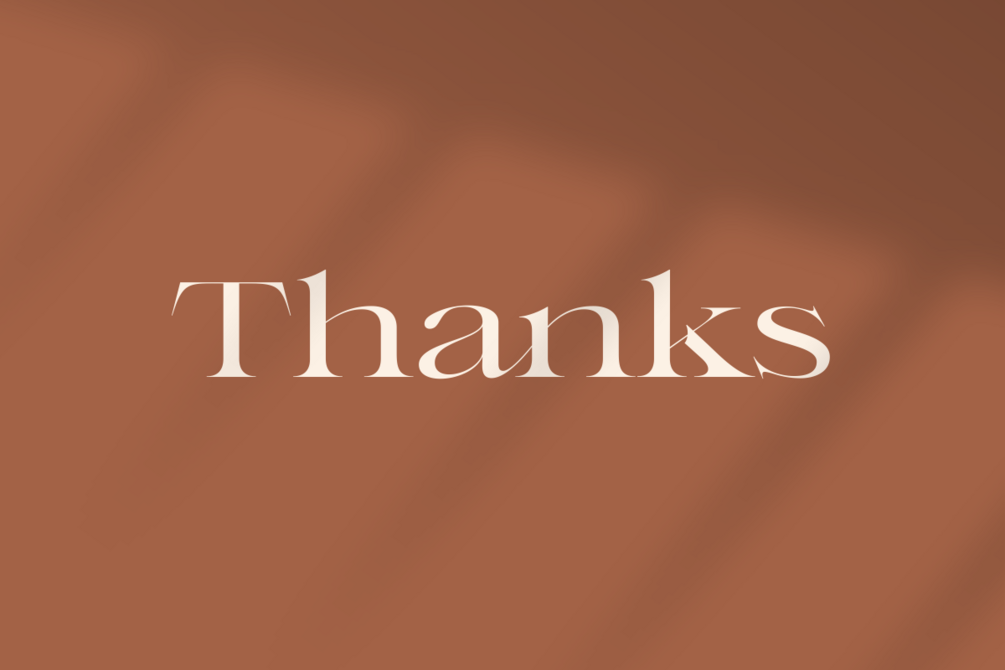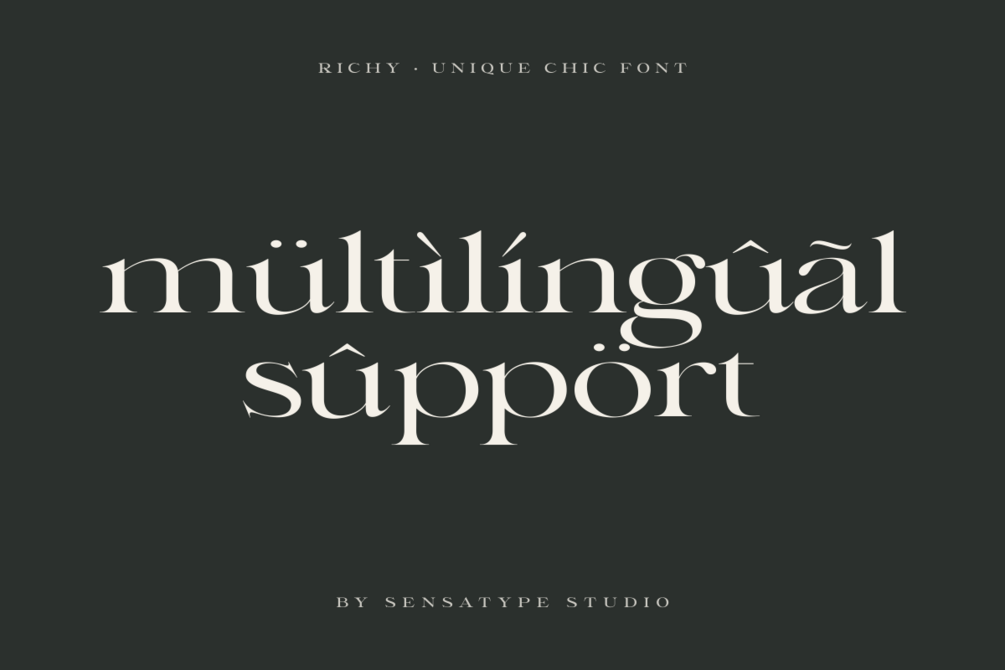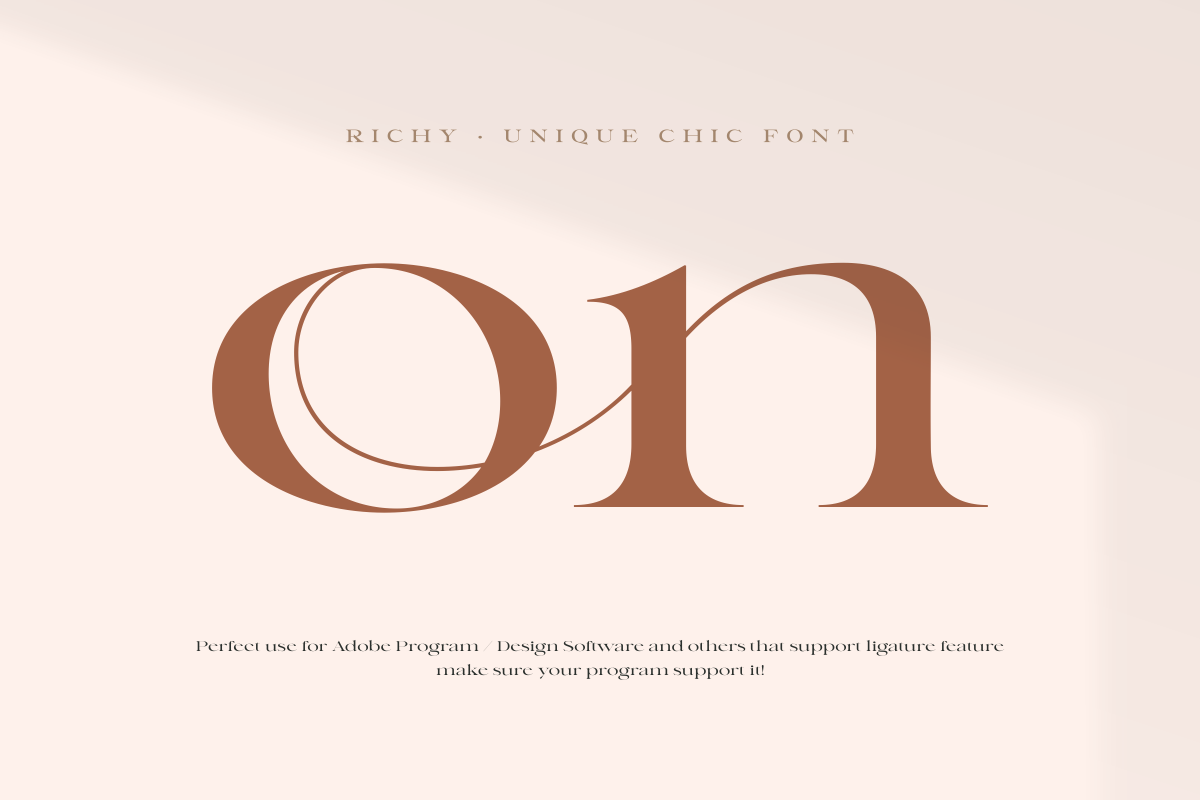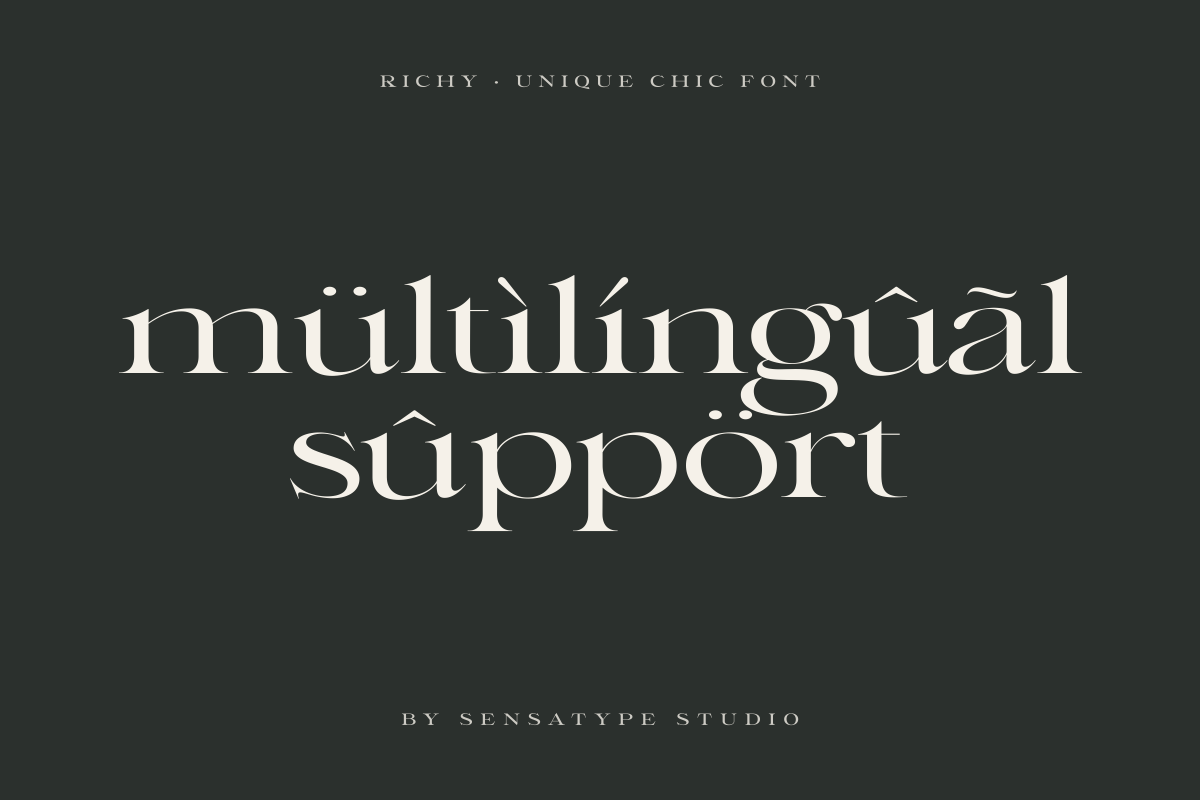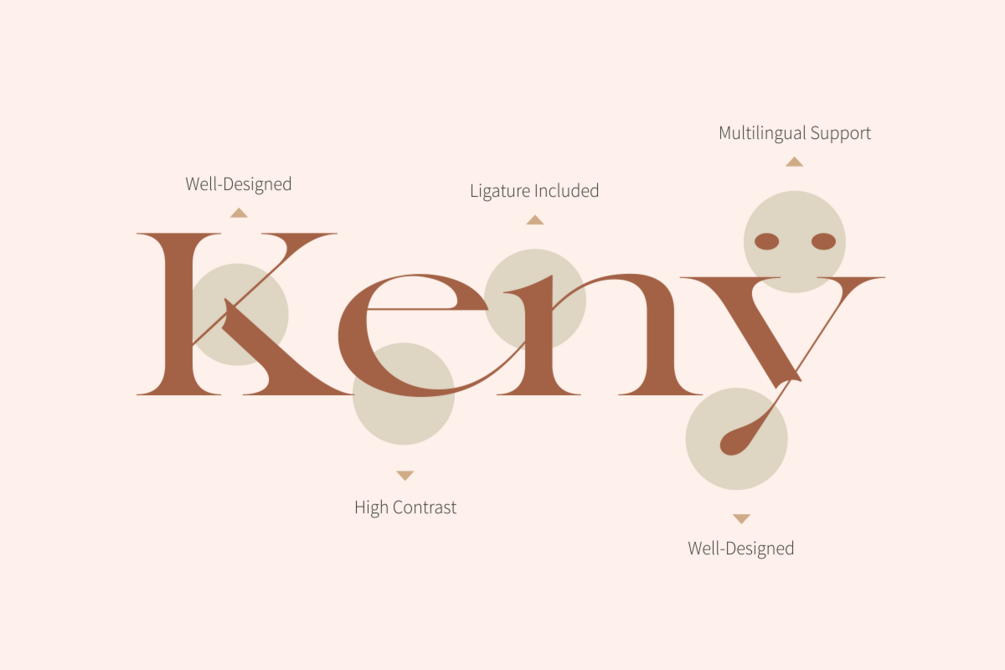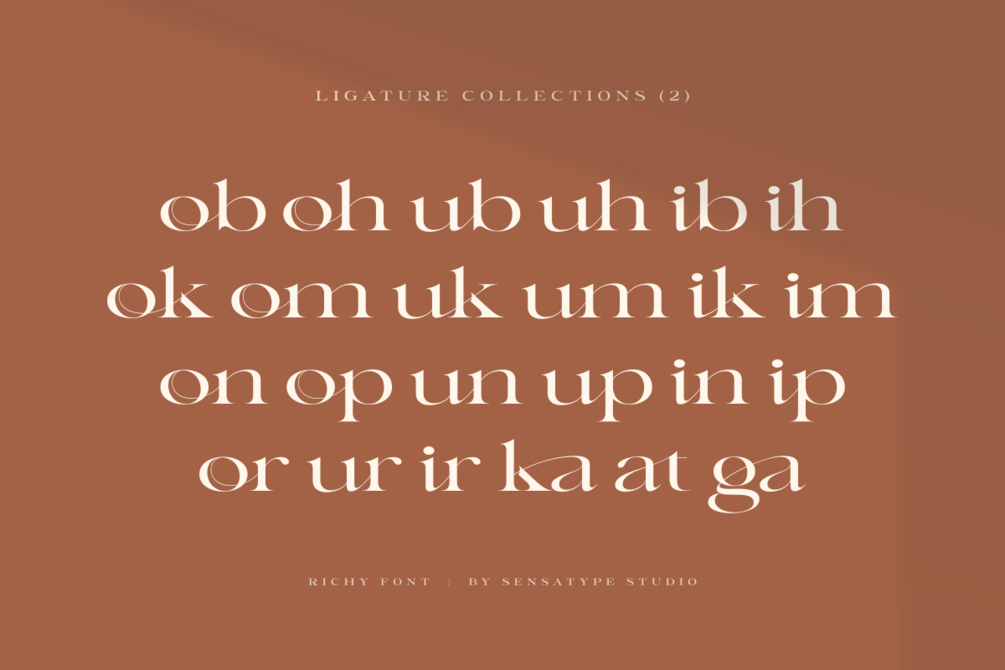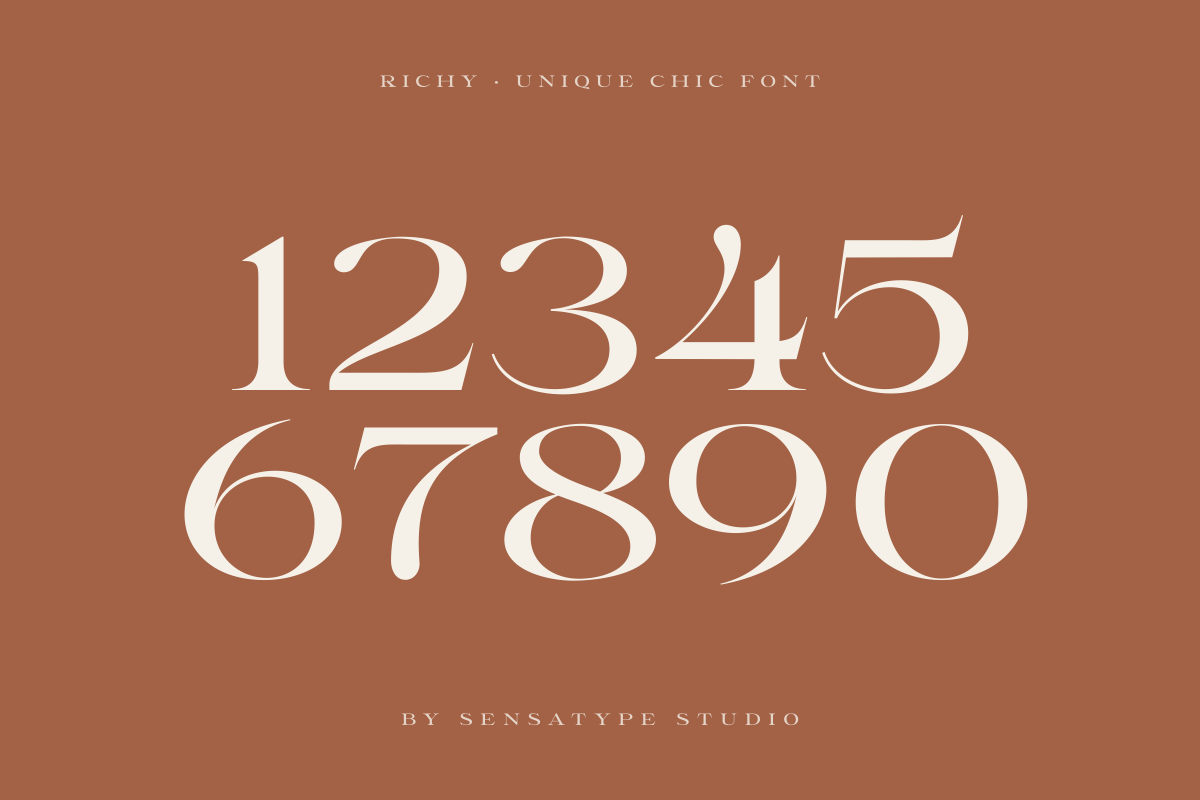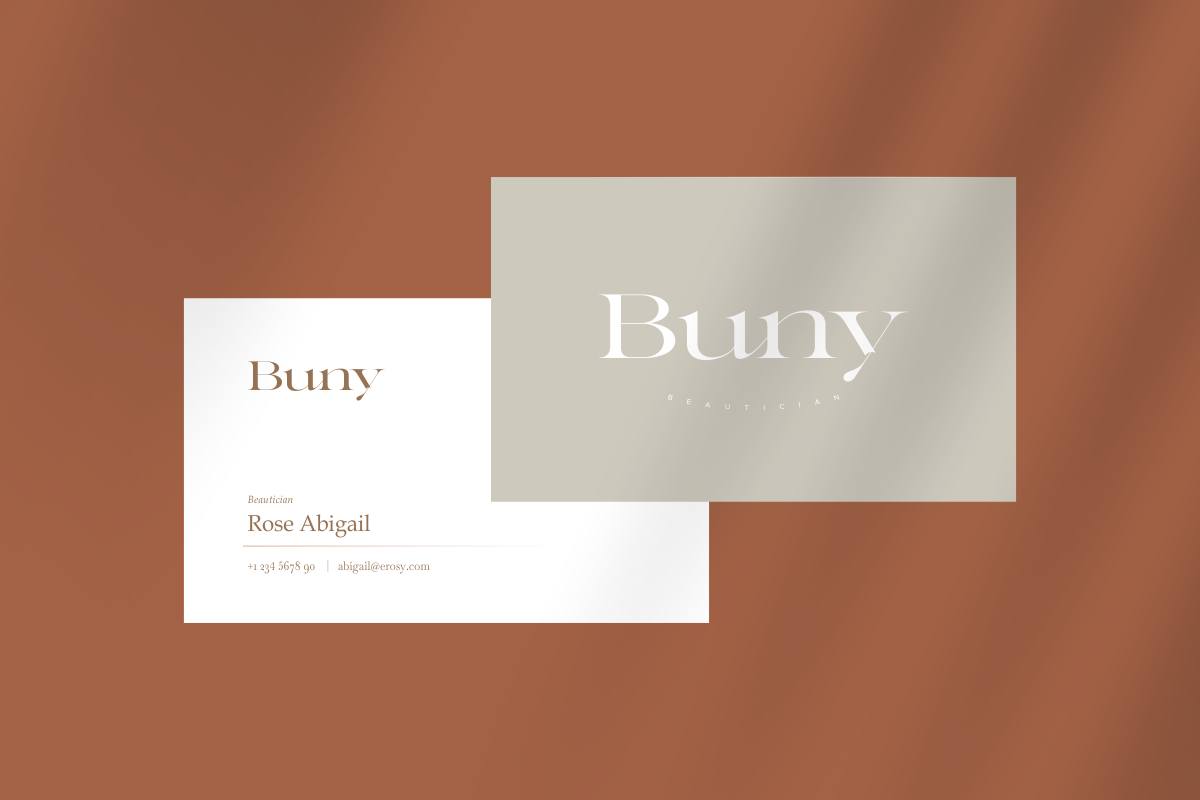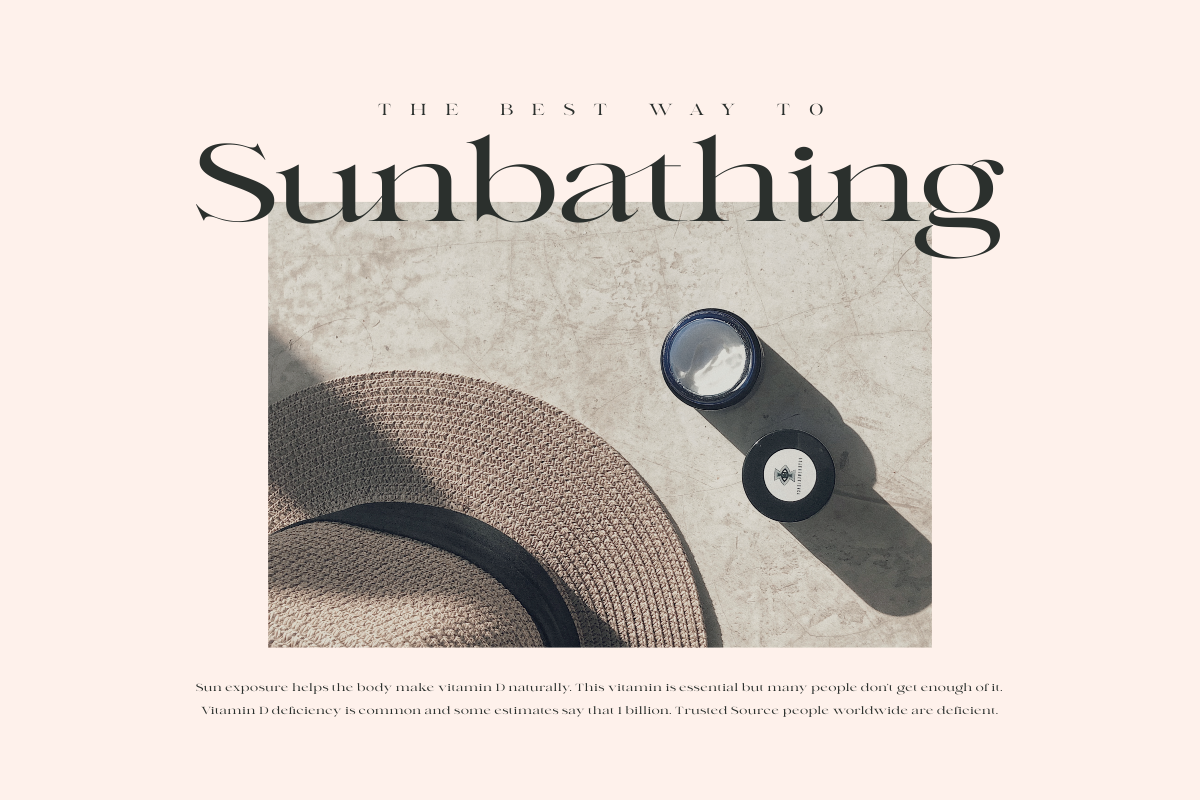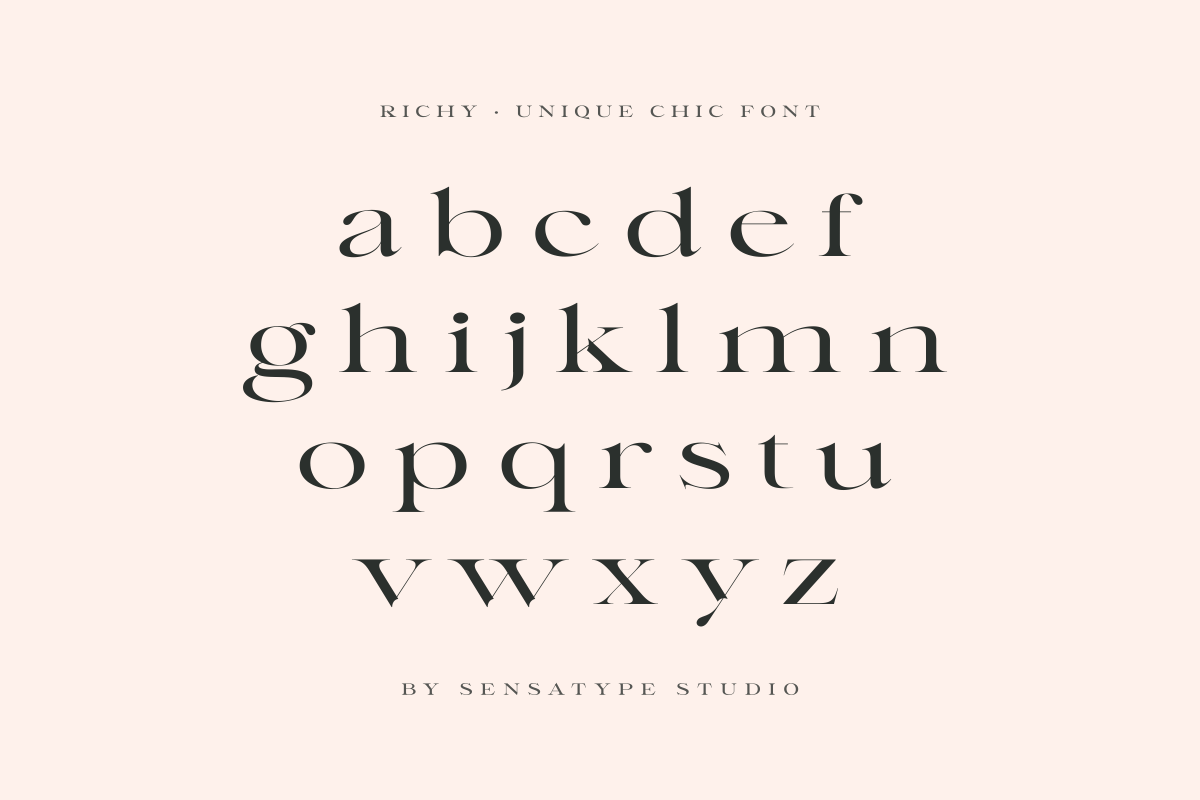
Richy - Unique Chic Font
RICHY is a unique and chic font designed to elevate your creative projects with elegance and style. Its distinctive letterforms make it ideal for branding, logos, invitations, packaging, and editorial designs.
Balancing originality with readability, RICHY adds a polished, professional, and visually captivating look to both digital and print projects. Perfect for designers seeking a sophisticated and fashionable aesthetic.
RICHY – Unique Chic Font Features
- Distinctive and chic character set
- Elegant, refined, and professional design
- Includes uppercase, lowercase, numerals, and punctuation
- Suitable for digital and print projects
- OpenType features for versatile typography
- Multilingual support